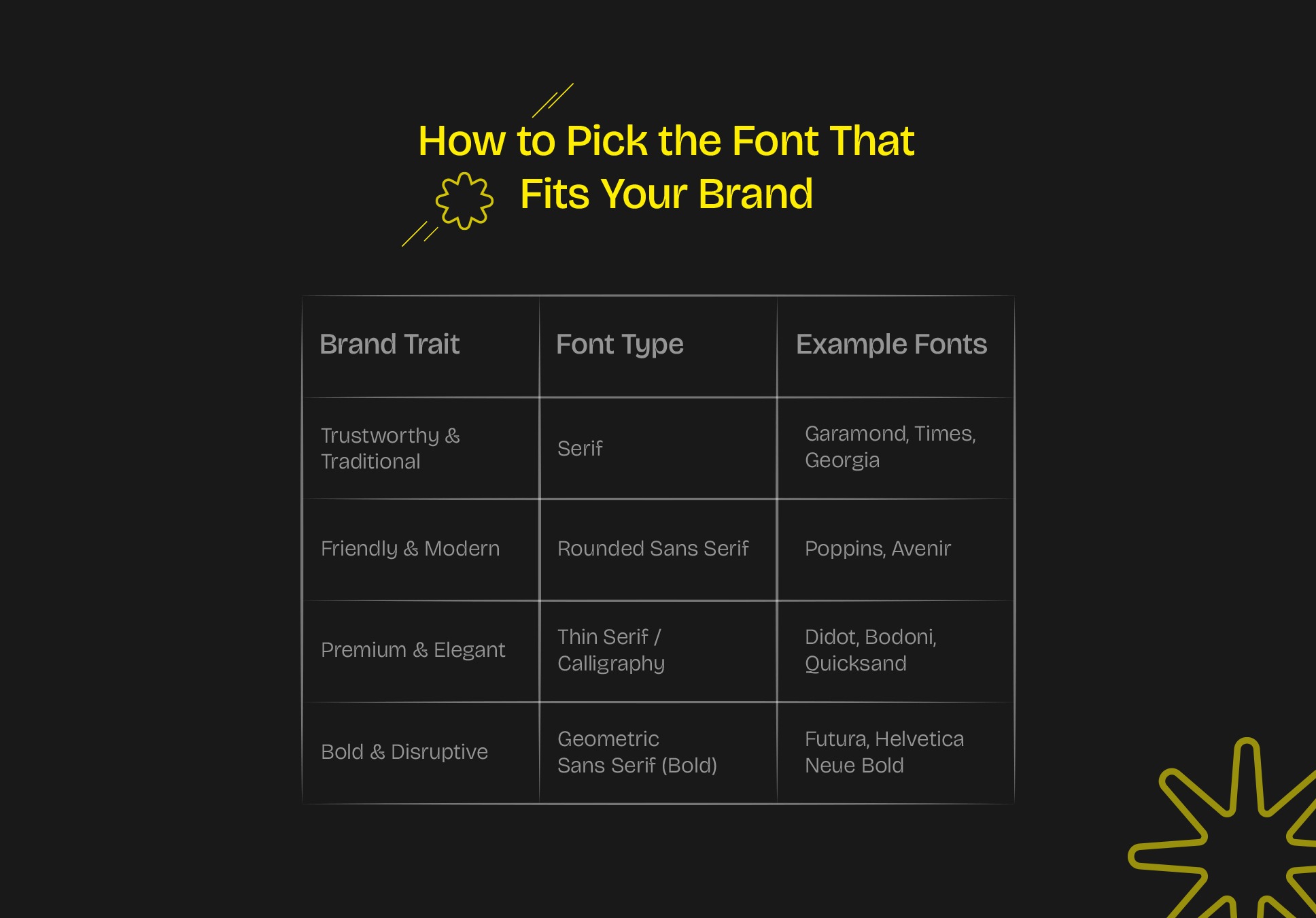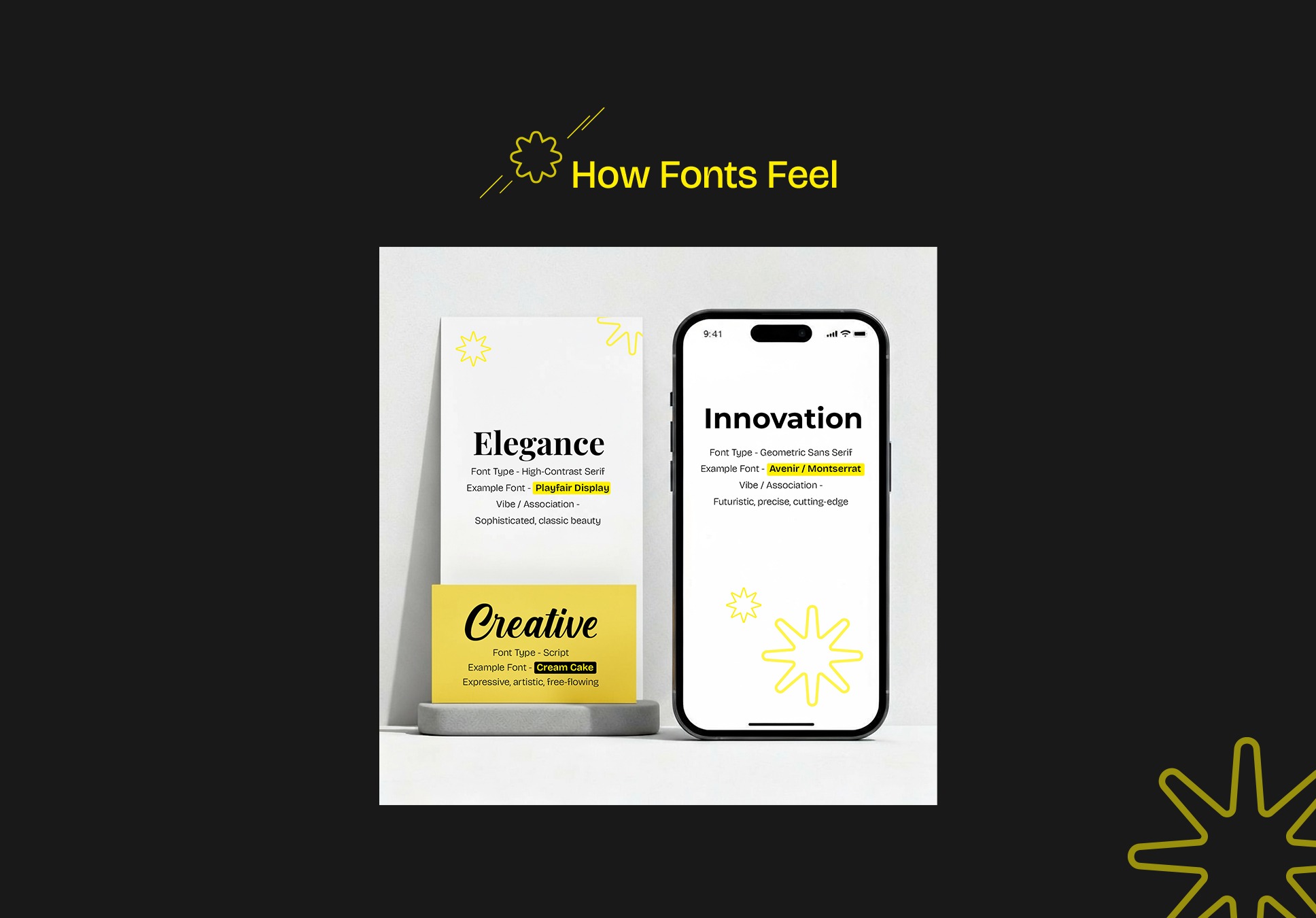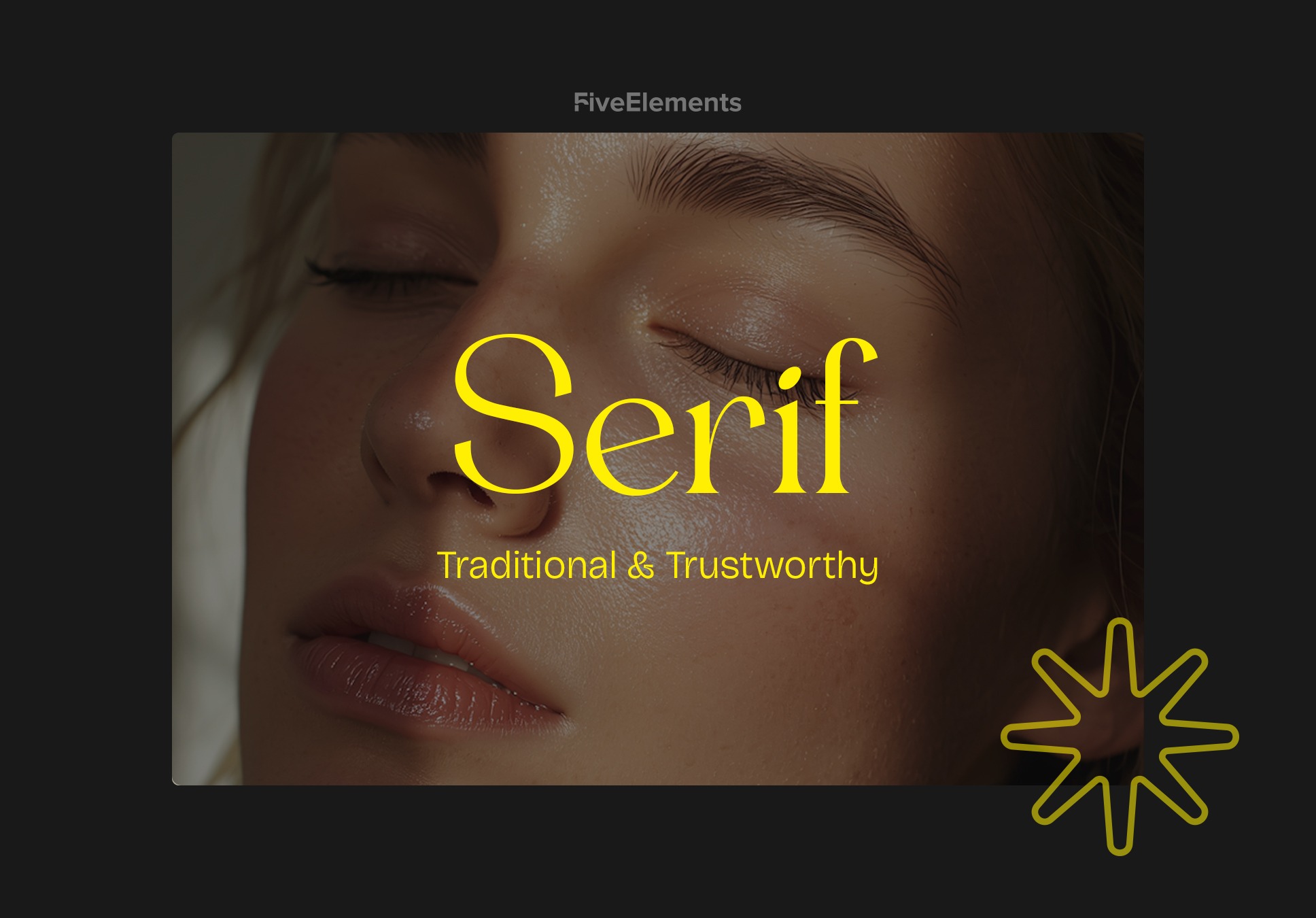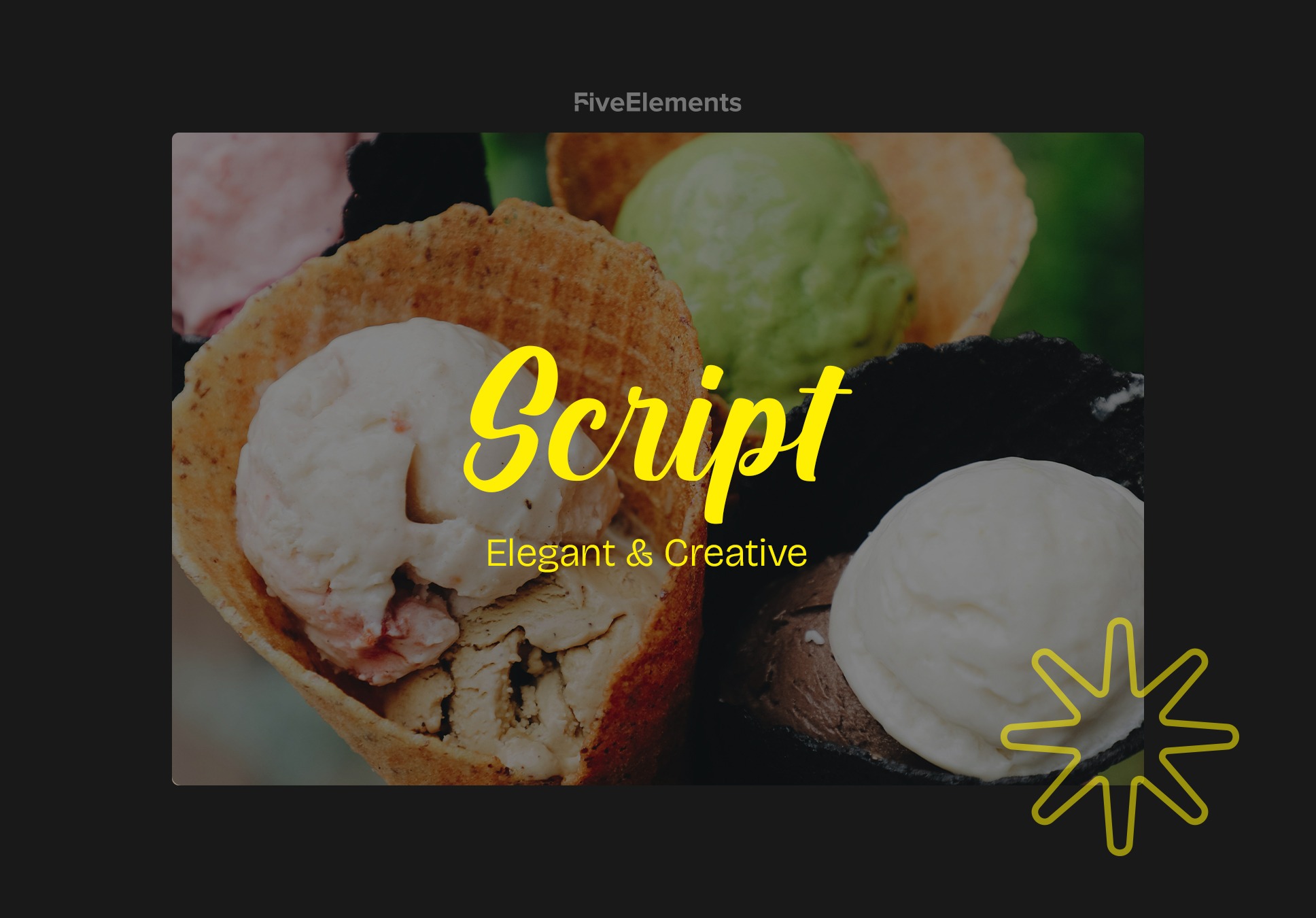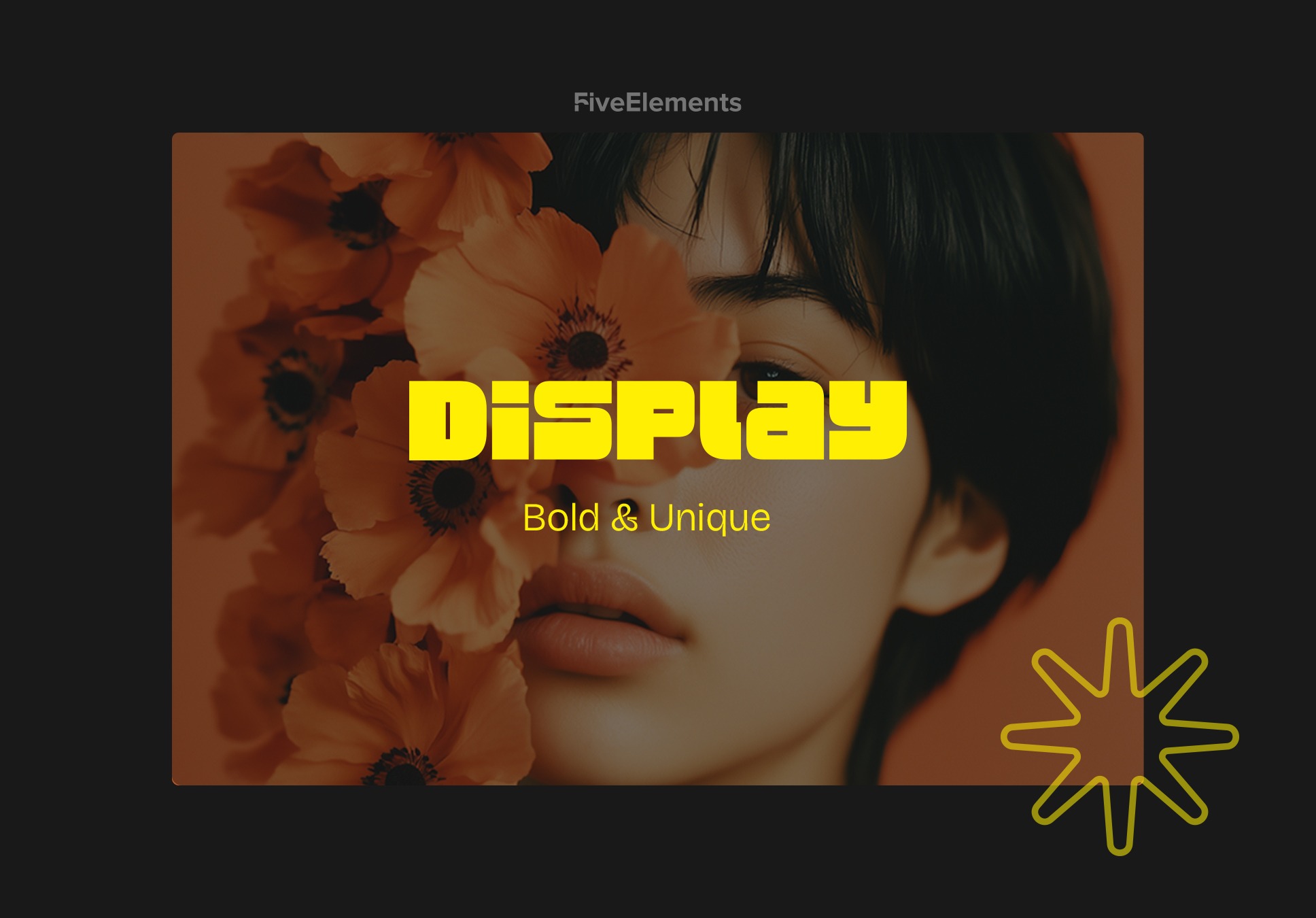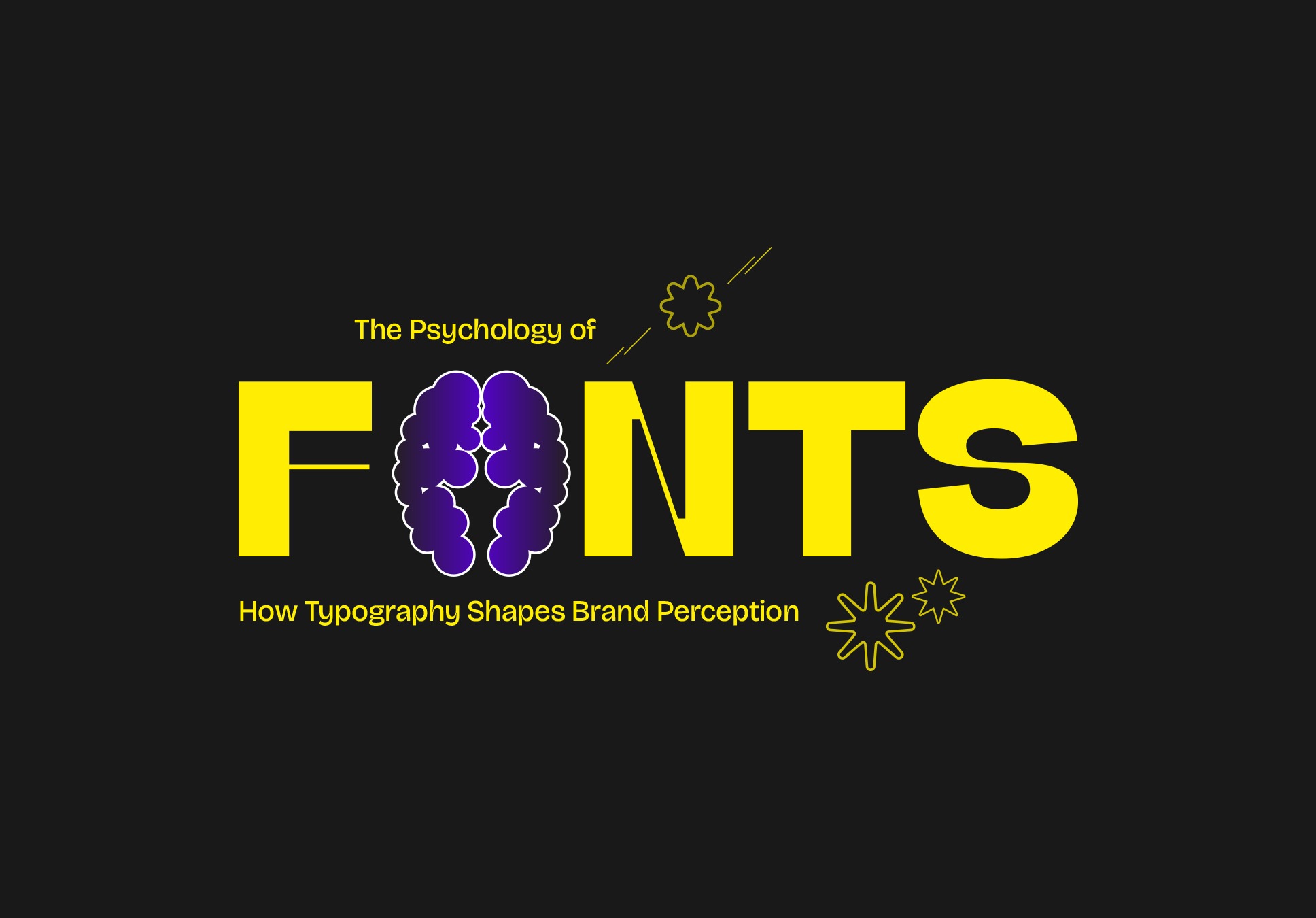
The Psychology of Fonts: How Typography Shapes Brand Perception
Discover how the psychology of fonts influences brand perception. Learn how typography choices shape emotion, trust, and creativity in design.